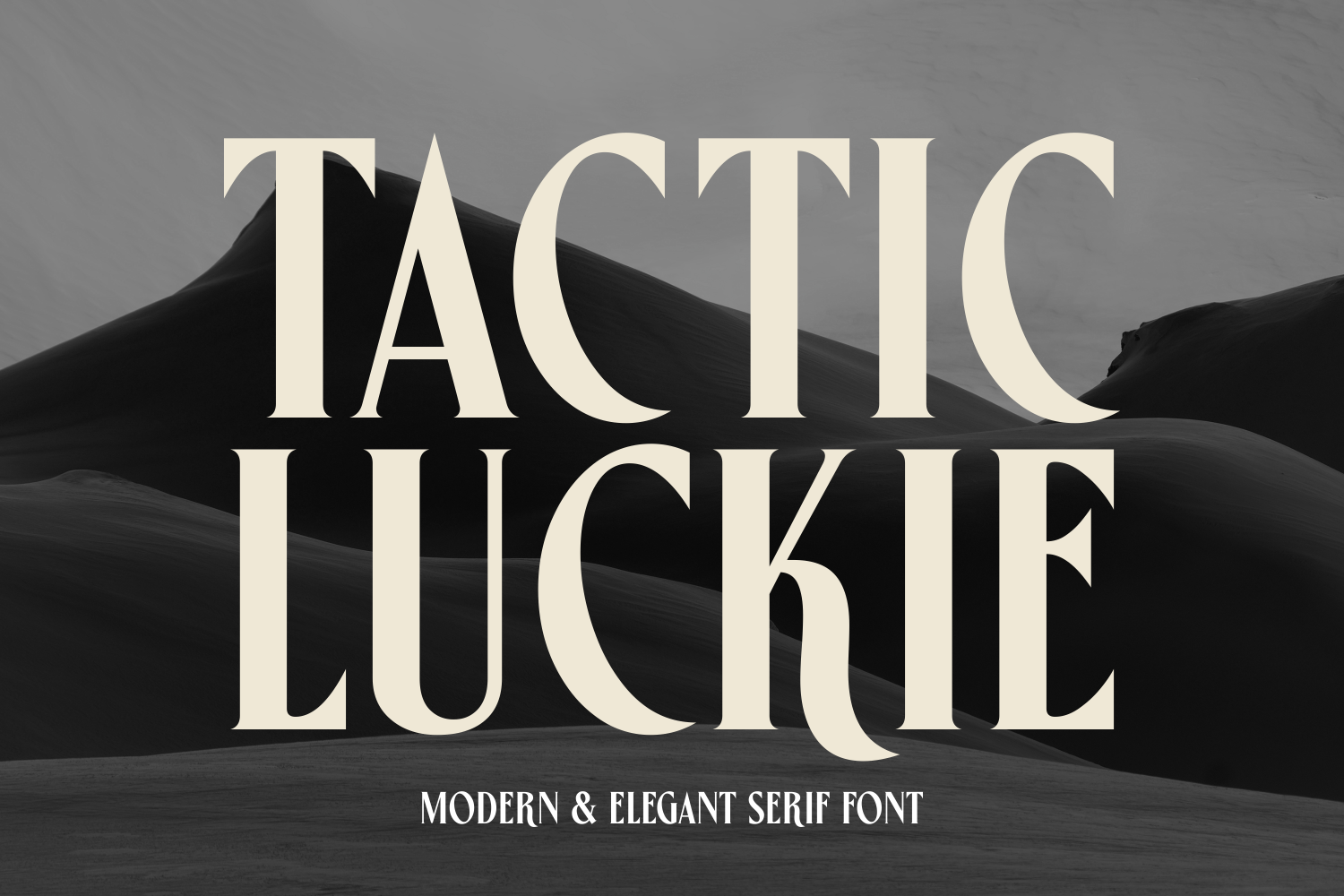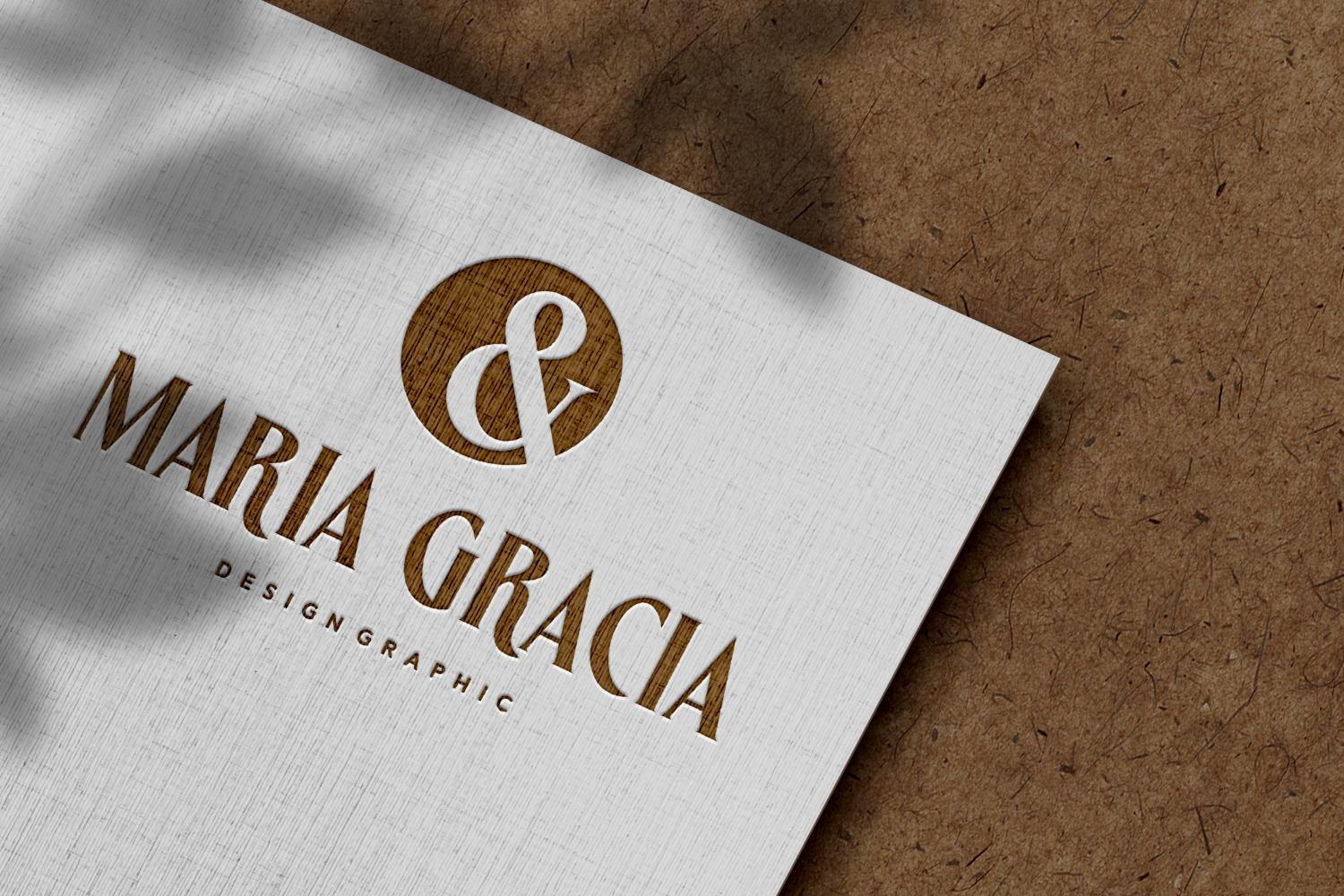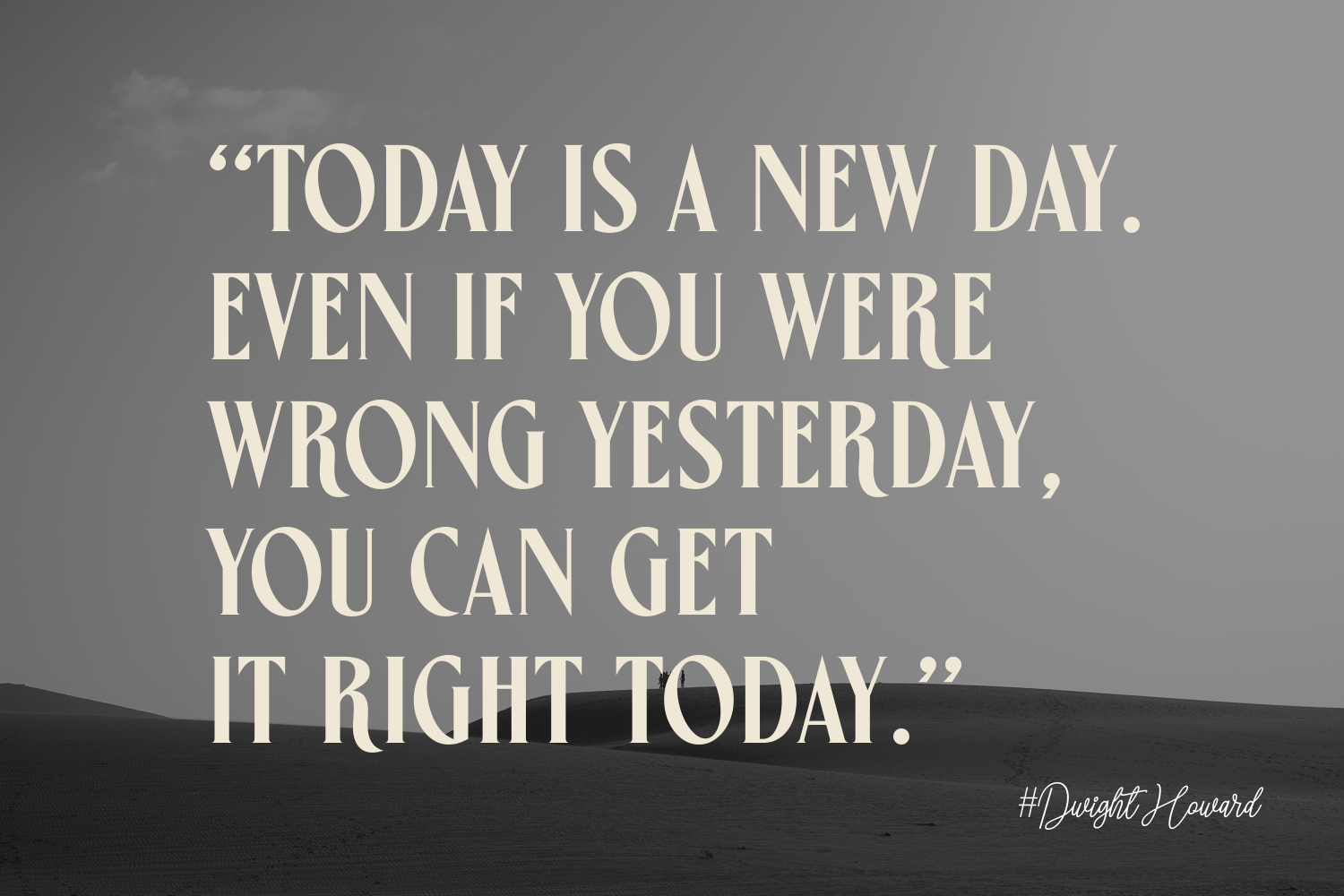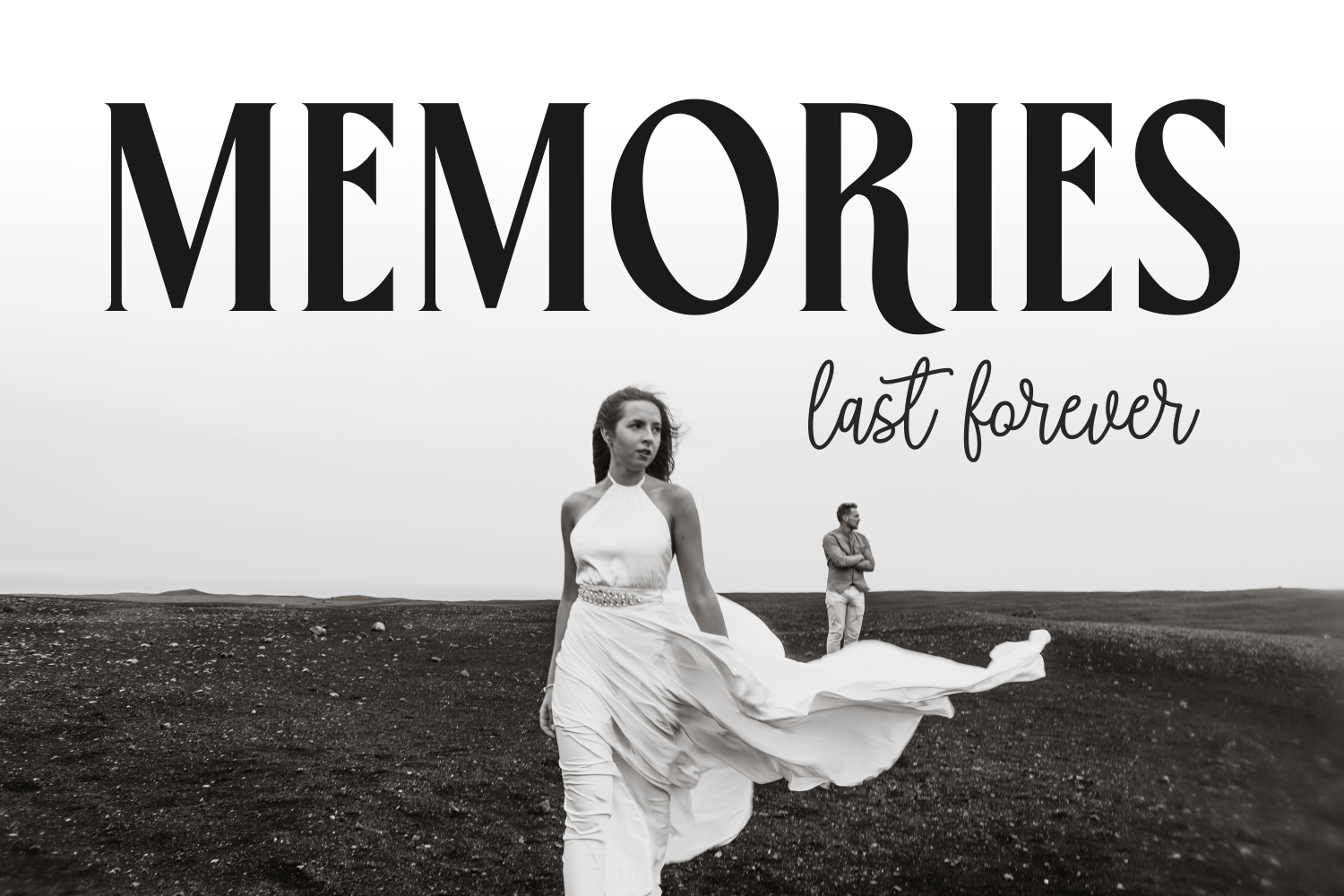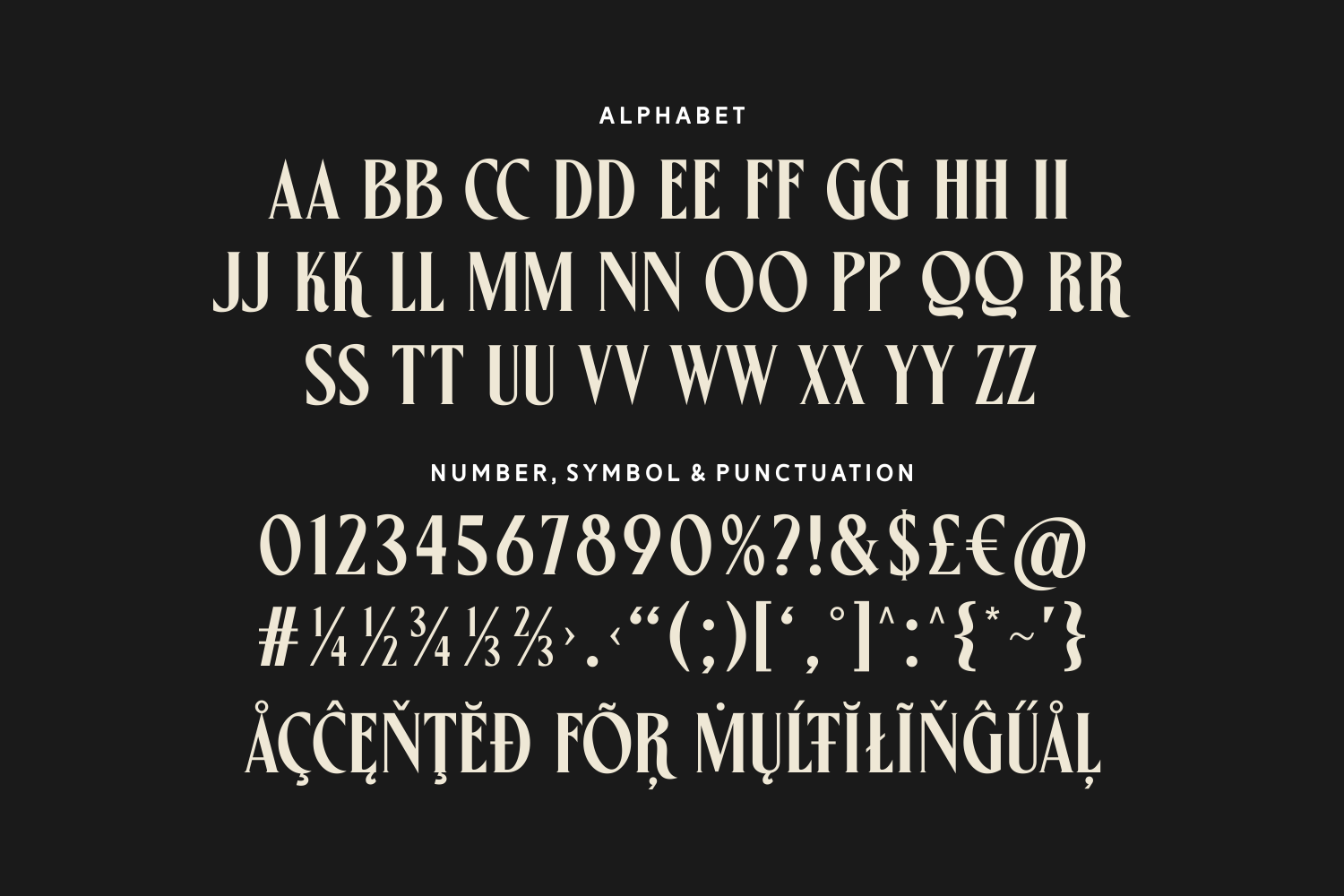
Tactic Luckie is a bold and modern serif font that balances geometric elegance with vintage-inspired flair. It’s ideal for logos, branding, and striking headlines that need to stand tall and exude confidence.